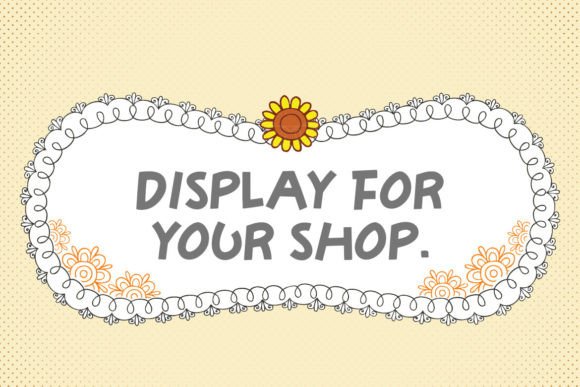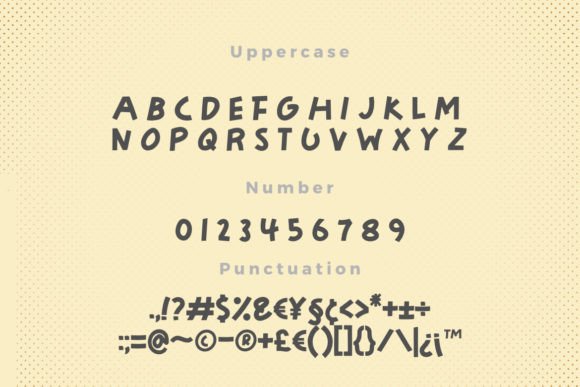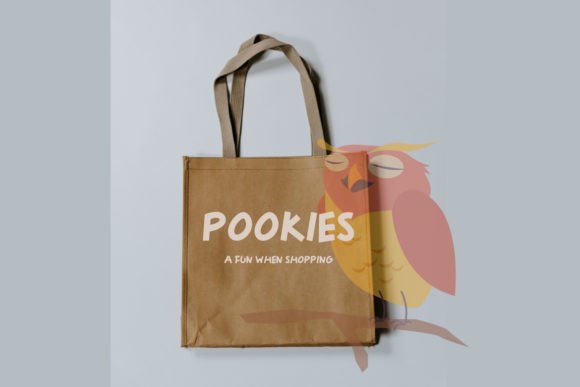
Introduction to Playbook Font
**Playbook playful Sans Serif Font**, inspired by playful cartoon style typography.
This font is made with a high premium quality level which you can use as flyers, quotes, posters, banners, packaging, merchandise, logotypes, and much more .
Key Features of Playbook Font